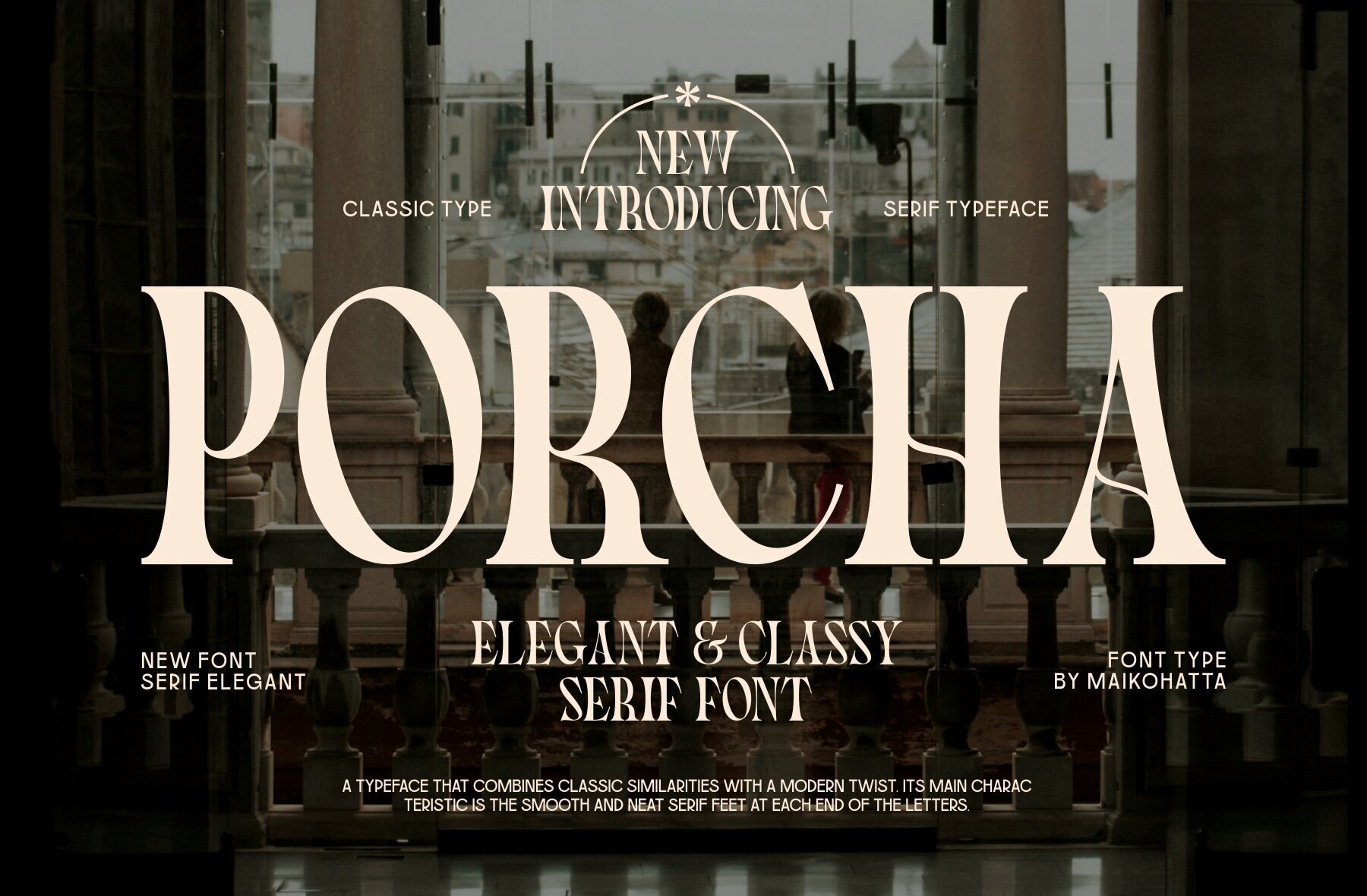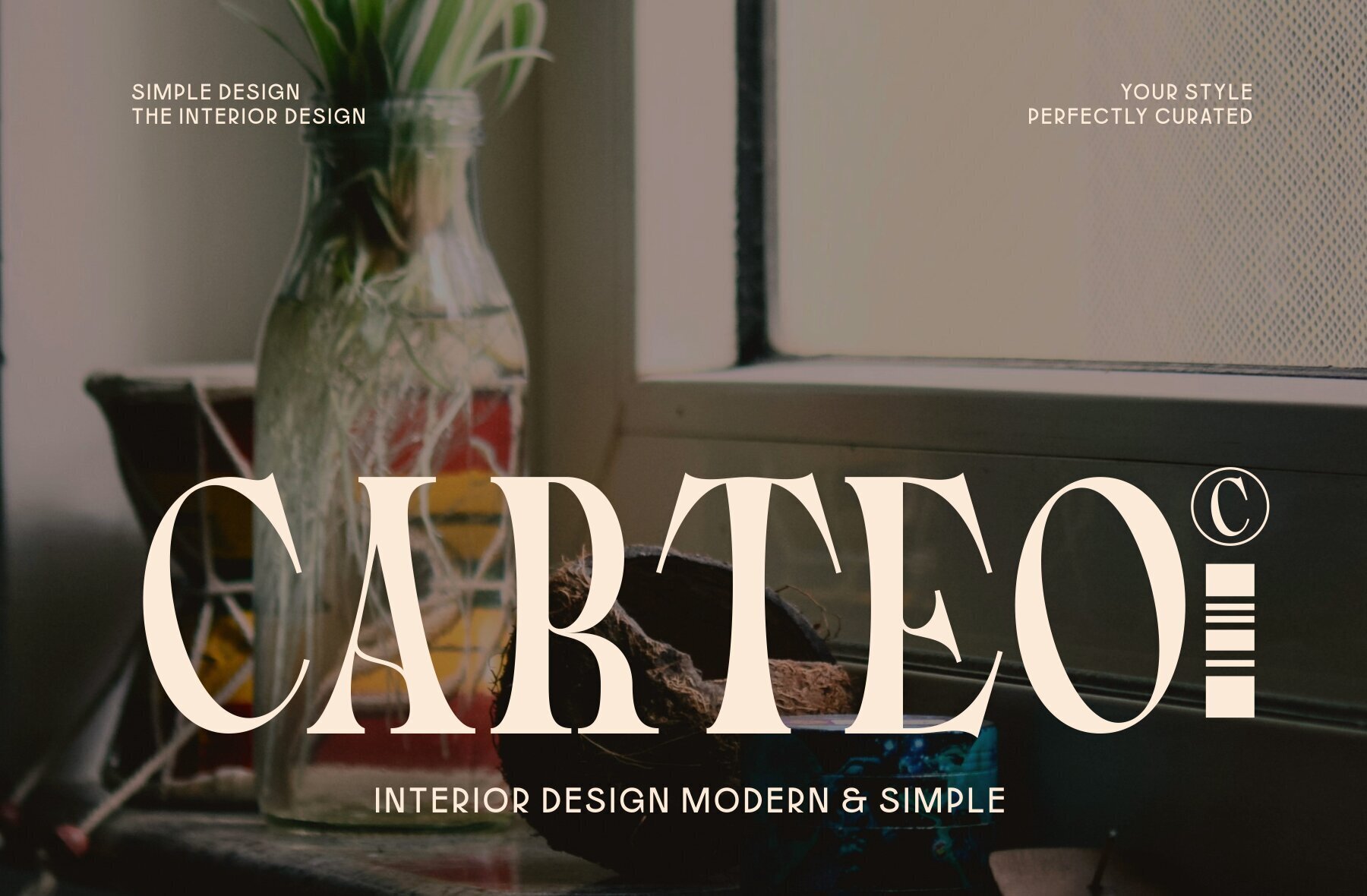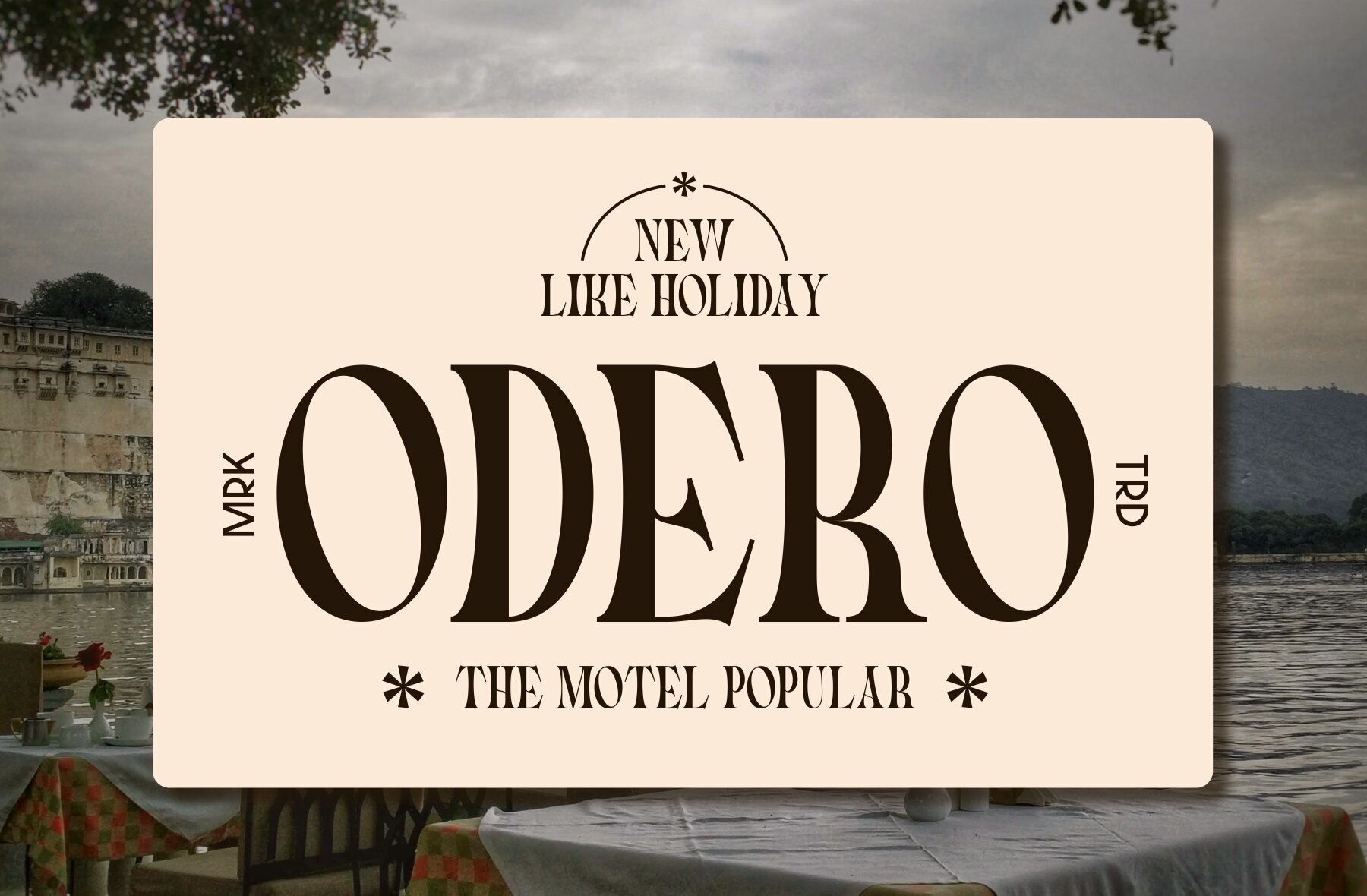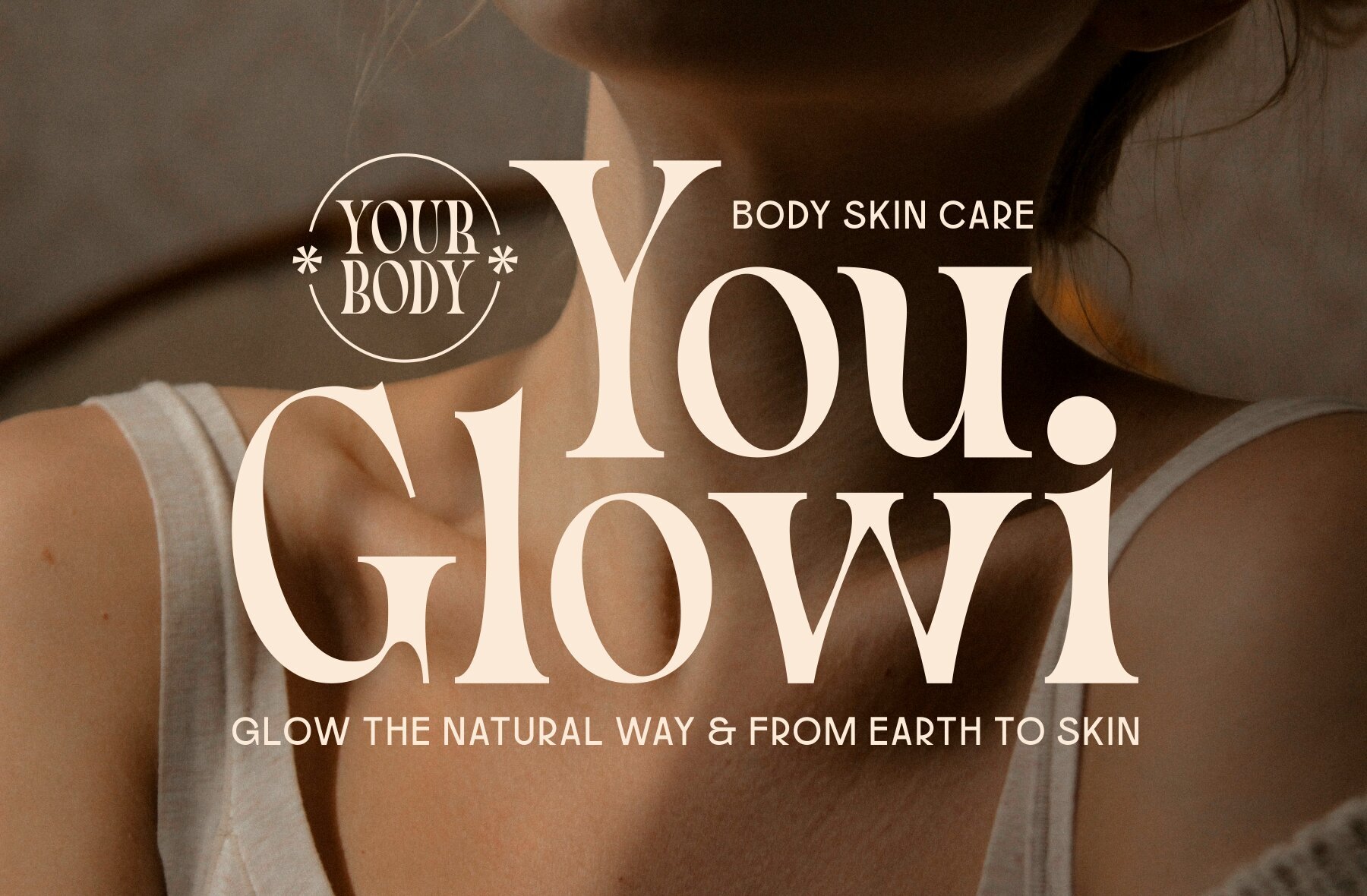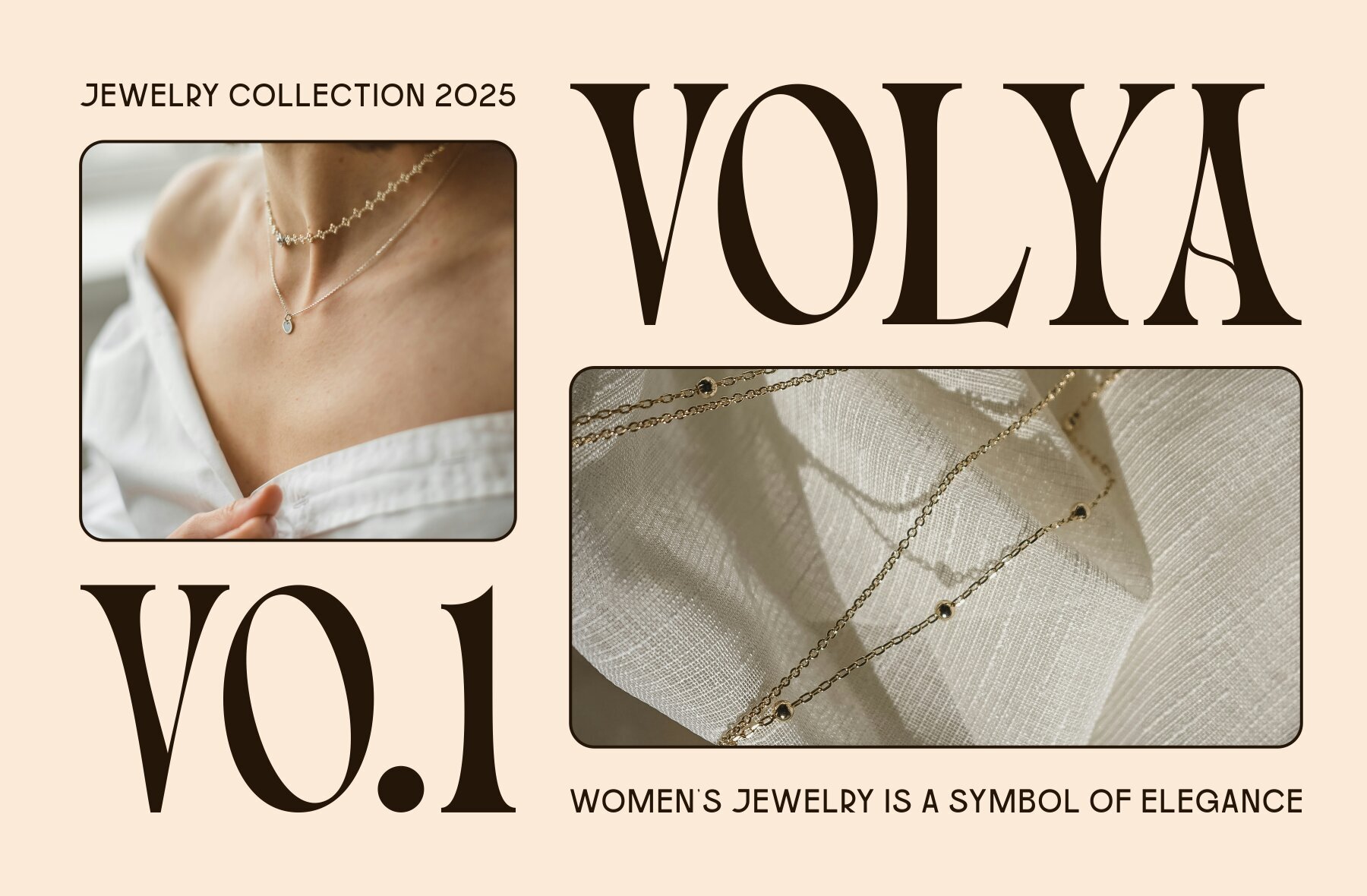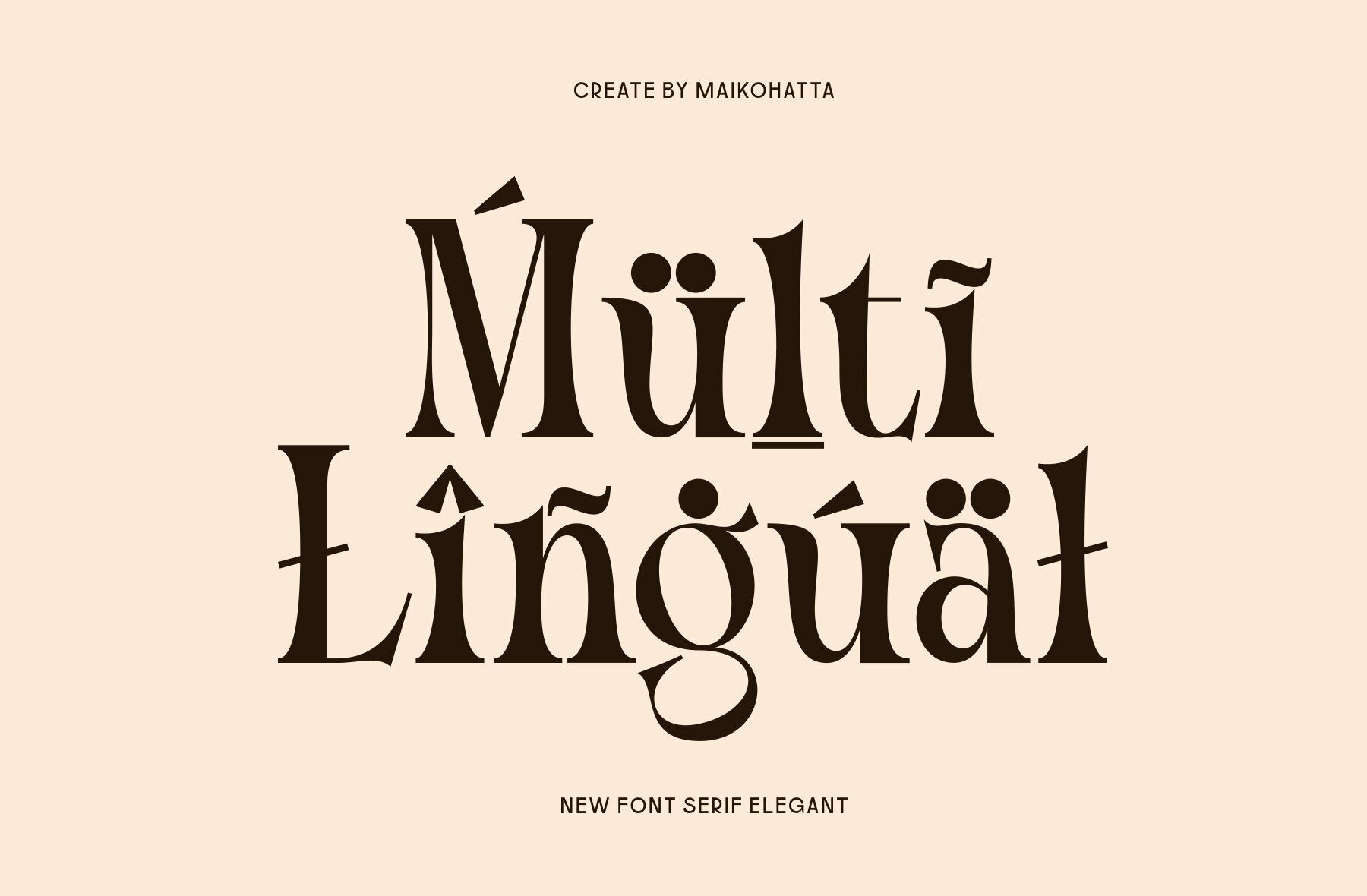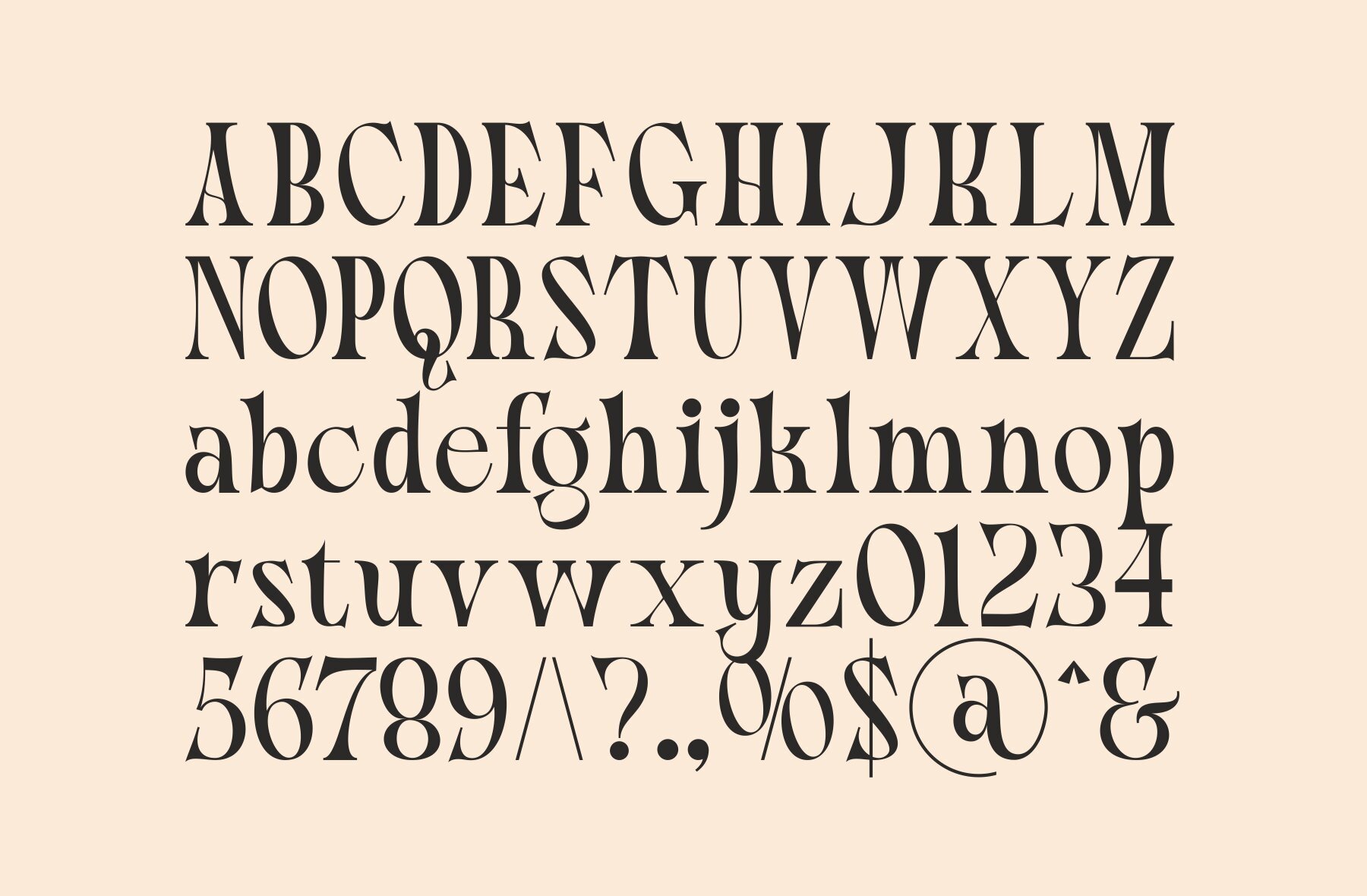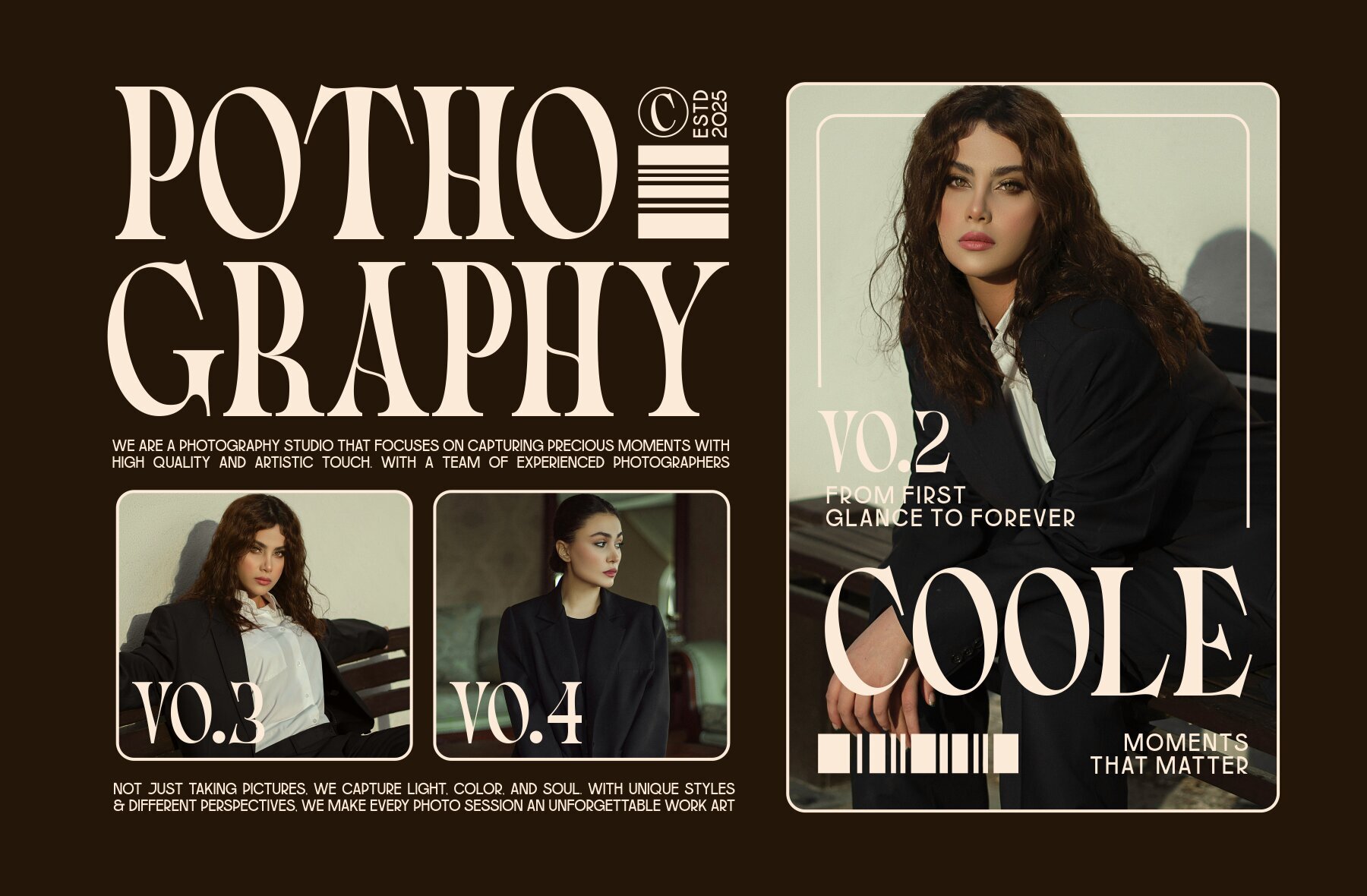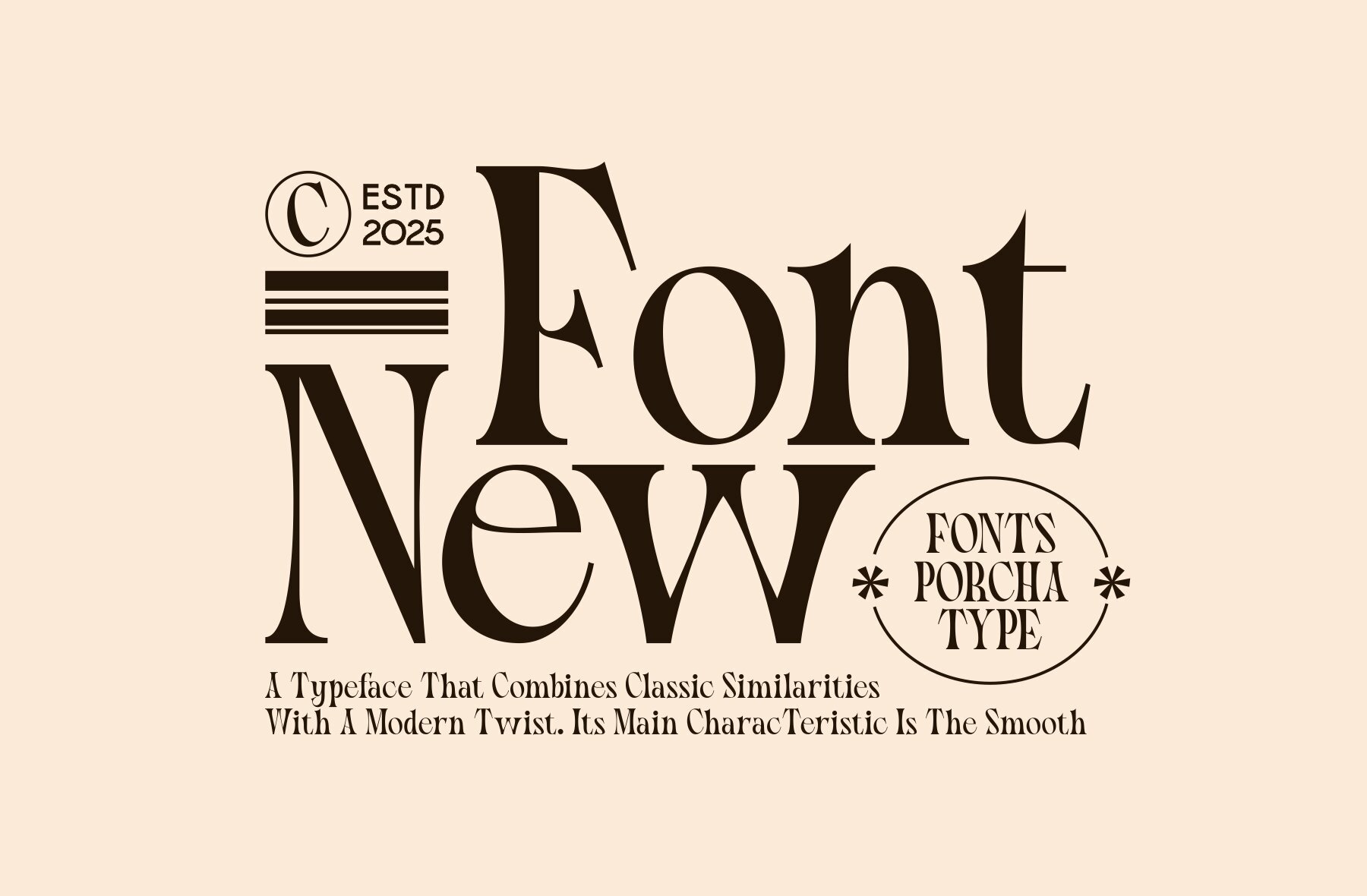
Porcha Font
PORCHA
Elegant Serif Font offers a typeface that embodies timeless beauty and sophistication. Its smooth serifs and balanced proportions bring luxury and classic charm to any design. Perfect for high-end branding or wedding invitations, it complements editorial layouts, fashion logos, and projects aiming for a vintage-modern aesthetic. This typeface expertly blends traditional beauty with modern precision, ensuring versatility and visual appeal.Elegant Serif Font: Timeless Sophistication